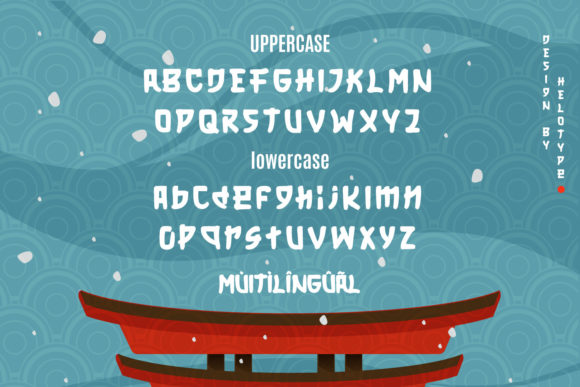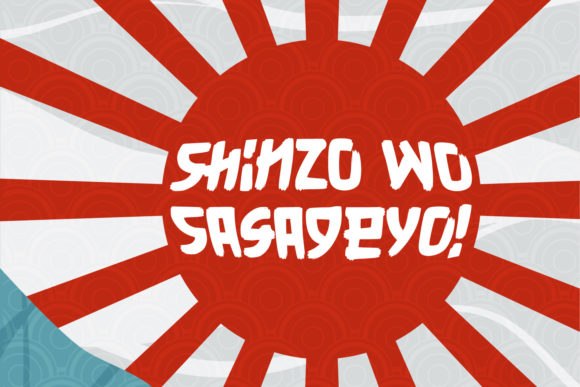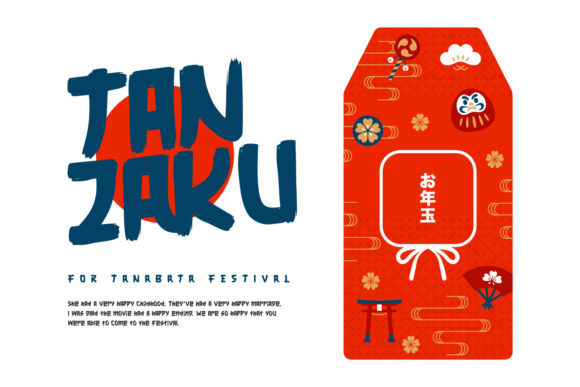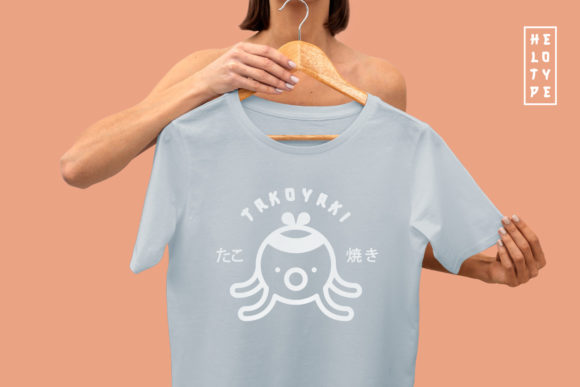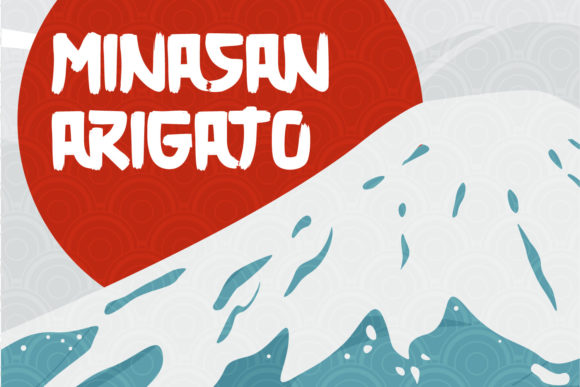
Introduction to Midorima Font
Have you ever been browsing through a trendy cafe menu, only to be captivated by the beautiful typography? The combination of high-quality design elements and creative fonts can make all the difference in capturing our attention. As designers, we’re always on the lookout for unique and stylish fonts to elevate our creative projects.
That’s where the Midorima Font comes in – a cool, brushed, Japanese styled display font that’s sure to make your designs stand out. With its sleek and modern aesthetic, this font is perfect for any food menu, poster flyer, or print. Whether you’re a seasoned designer or just starting out, the Midorima Font is an invaluable resource that’s sure to add a touch of sophistication to your work.
Key Features of Midorima Font
- Unique Design: Midorima Font is a high-quality, unique design resource perfect for creative projects requiring a touch of elegance and sophistication.
- High-Quality Typography: This font features high-quality typography, with carefully crafted letterforms and a professional finish.
- Perfect for Creative Projects: Midorima Font is a versatile design resource that is perfect for a wide range of creative projects, from branding and marketing to graphic design and digital art.
Honest Review: Midorima Font
As a designer, I’m always on the lookout for high-quality design resources that can elevate my creative projects. The Midorima Font caught my eye, and I decided to give it a try.
- ✨ Beautifully designed characters with a unique, handwritten feel
- ✨ Supports a wide range of languages, making it a great option for international projects
- ⚠️ Limited font sizes and styles available, which may limit its versatility
- ⚠️ Not suitable for formal or professional projects, as it has a more casual feel
Overall, I’m impressed with the Midorima Font. It’s a great option for designers looking for a unique and creative font to add to their design resources. The free download is a bonus, making it accessible to designers of all levels.
- Combine Midorima Font with other design elements, such as images and graphics, to add depth and interest.
Midorima Font is suitable for a variety of design projects, including:
- Graphic design and branding materials.
- Web design and development.
- Print design and marketing materials.
Alternatives to Midorima Font
Avenir Font is a high-quality sans-serif font that is perfect for creative projects. It is available for free download and features a clean, modern design that works well with transparent backgrounds. Avenir Font is ideal for use in logos, branding materials, and any design resource that requires a professional look.
Compared to Midorima Font, Avenir Font has a more geometric and minimalist design, making it a great choice for projects that require a clean and simple aesthetic. It is also highly legible, making it a great choice for body text and headings.